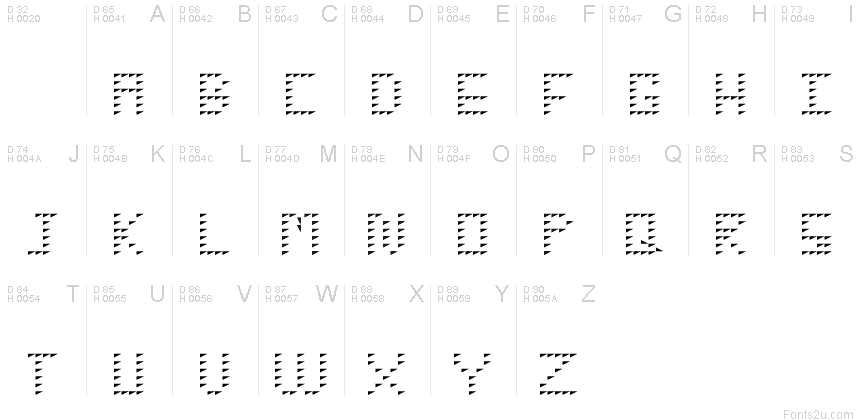
Daggers Regular
Daggers font by Laura Bradshaw is a free decorative display typeface that slices text into sharp, repeating triangles, like a row of tiny blades marching across the line. Each letter feels kinetic and jittery, with a rhythmic zigzag texture that catches light in your imagination and suggests motion even when the page is still. The tight, modular structure keeps this wild texture readable, so you get attitude without losing the message.
Using Daggers, your titles feel wired and electric—great for music posters, experimental branding, game titles, zines, techy event graphics, and edgy social media visuals. This free font works best at large sizes where the “dagger” pattern can really show off; pair it with a plain, neutral sans serif for body text to let Daggers do all the shouting.